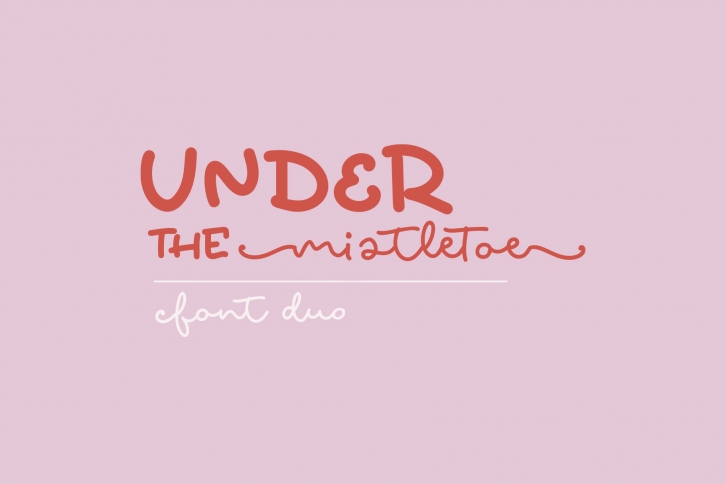
Under the Mistletoe Duo consists of two fonts designed to complement each other perfectly. Together or apart, these fonts are ideal for adding a chic and cheery touch to your crafts. This font is PUA encoded which means you can access all glyphs and swashes with ease!